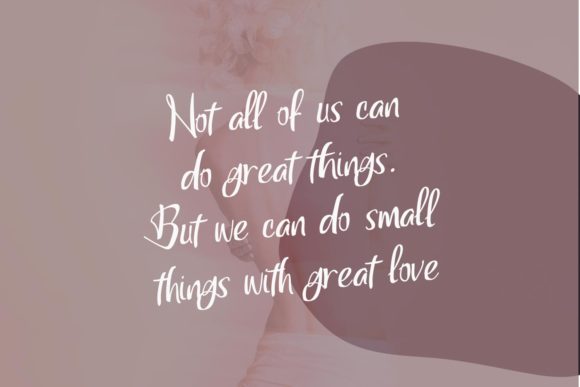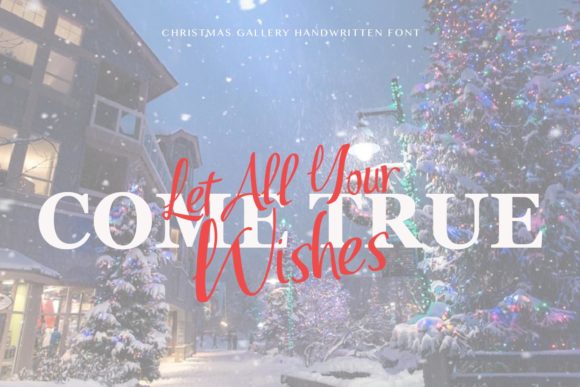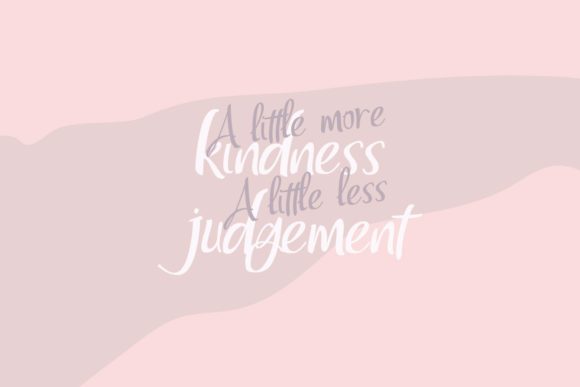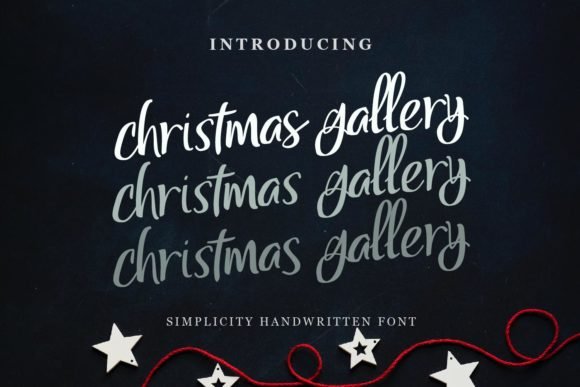
Introduction to Christmas Gallery Font
Christmas Gallery is a charming and elegant handwritten font.
Why Choose Christmas Gallery Font?
Christmas Gallery Font offers exceptional quality and versatility, making it a valuable addition to your design toolkit. Whether you’re creating for personal projects or commercial use, Christmas Gallery Font delivers professional results.